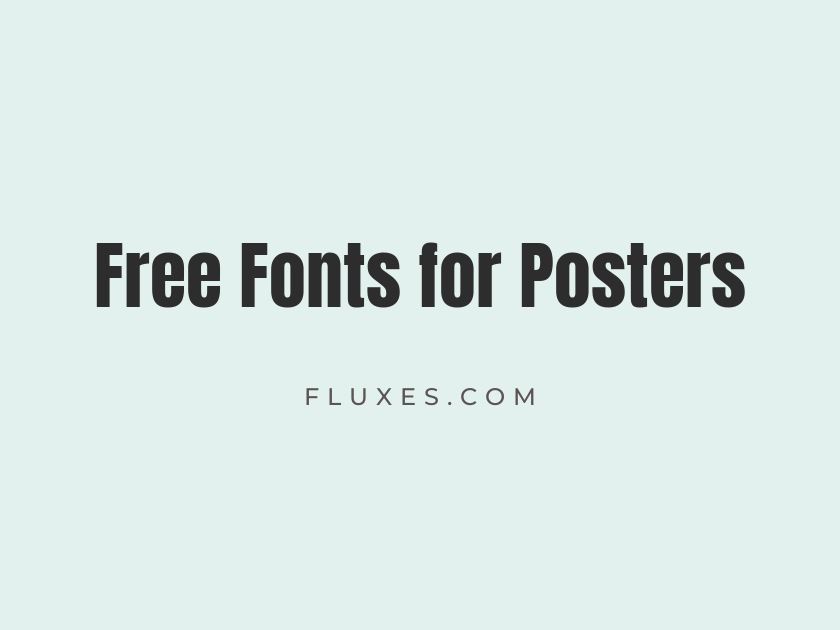
73 Best Free Fonts for Posters
Anton is about as close as free fonts get to pure volume. The strokes are so heavy and the counters so tight that a single word set in it can fill a page and still feel urgent.
It is a natural fit for sale posters, sports graphics, and protest signage, anywhere the message needs to land before anyone starts reading the small print.
Few free fonts have been used on more posters than Bebas Neue, and for good reason. Its tall, narrow caps pack a lot of impact into a small footprint, which makes it a go-to for gig flyers and movie one-sheets where space is tight and the title needs to dominate.
Archivo Black trades condensed drama for width and stability. It reads as sturdy and businesslike rather than aggressive, which makes it useful for posters that need authority without shouting, from exhibition signage to political campaigns.
Oswald reworks the old grotesque-condensed genre, the family of nineteenth-century sign-painter faces, into something clean enough for screens. It sits comfortably at both huge headline sizes and smaller supporting text, which is rare among condensed display fonts.
Pair it with a plain serif body copy for a poster that feels editorial rather than promotional.
Fjalla One is condensed but a touch friendlier than most of its category, with rounded terminals that soften the impact. It works well on posters that need to feel confident without tipping into aggression.
Staatliches has an athletic, stamped-ink quality that suits sports schedules, streetwear graphics, and anything wanting a slightly rebellious edge. It is a single weight, so treat it as a headline specialist rather than a full system.
Righteous leans retro-futuristic, with rounded geometric caps that recall seventies signage and record sleeves. It is a strong choice for music posters or anything chasing a nostalgic, groovy mood.
At its heaviest weight, Montserrat turns from a friendly geometric workhorse into a legitimate poster font, all rounded corners and confident geometry. Its versatility across the whole family also makes it easy to build a full poster system, headline through fine print, from one typeface.
Teko is a compressed Indian-inspired display face with a technical, engineered look. It carries motorsport and fitness posters nicely, where a narrow, upright letterform helps cram a lot of urgency into a banner.
Barlow Condensed comes from a large, well-built family, so it is easy to pair a bold condensed headline with lighter weights from the same face for dates and venue details. It has a slightly rounded, approachable quality that keeps dense poster copy from feeling cold.
Yanone Kaffeesatz
Yanone Kaffeesatz has a hand-cut, slightly imperfect condensed shape that feels closer to chalkboard lettering than corporate type. It flatters farmers market flyers, café posters, and anything wanting warmth over polish.
Kanit
Kanit is a geometric sans with Thai-influenced proportions and a crisp, modern edge. It handles both loopy display sizes and smaller supporting text competently, making it a practical anchor for a full poster layout.
Space Grotesk carries a slightly quirky, monospace-adjacent personality that reads as current and technical without feeling cold. It suits design, tech, and architecture posters that want a contemporary grotesk without defaulting to Helvetica-style neutrality.
Syne
Syne was built for creative and cultural branding, and it shows in its unusual proportions and slightly awkward, engineered curves. It is a font for posters that want to look deliberately unconventional, gallery openings and experimental theatre in particular.
Unbounded
Unbounded is a variable grotesk with a chunky, rounded geometry that feels closer to a logotype than body text. Use it sparingly on a single word or short phrase and let the negative space do the rest of the work.
Chivo at its heaviest weight is dense and grotesque in the best sense, dark enough to hold a headline on its own from a distance. It also has a well-rounded family of lighter weights for supporting copy, so one download can cover an entire poster.
Alfa Slab One is thick, blocky, and unapologetically loud, closer to wood type than a refined text slab. It works best on retail, circus, and carnival-style posters that want to feel a little brash.
Always test a headline font at the size it will actually print. Many of these display faces are stunning at poster scale but blur or clog when shrunk down for a social media crop.
Whatever the event, from a neighborhood open mic to a full film festival campaign, there is a free font on this list built to carry the headline. Download a few, set them large, and let the type do the shouting.